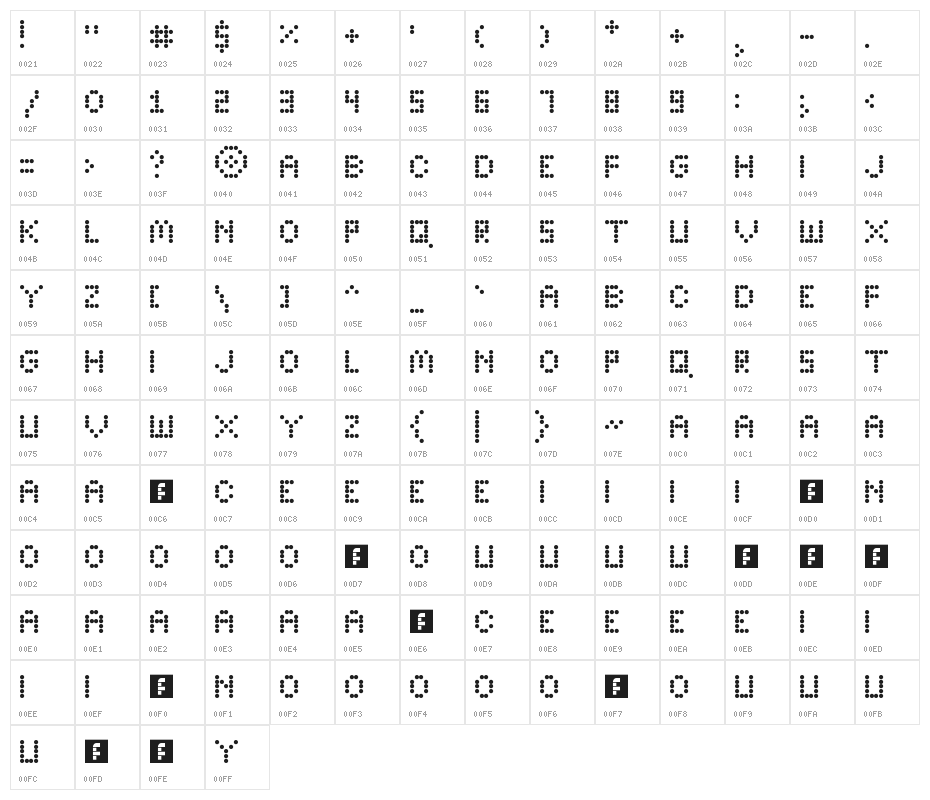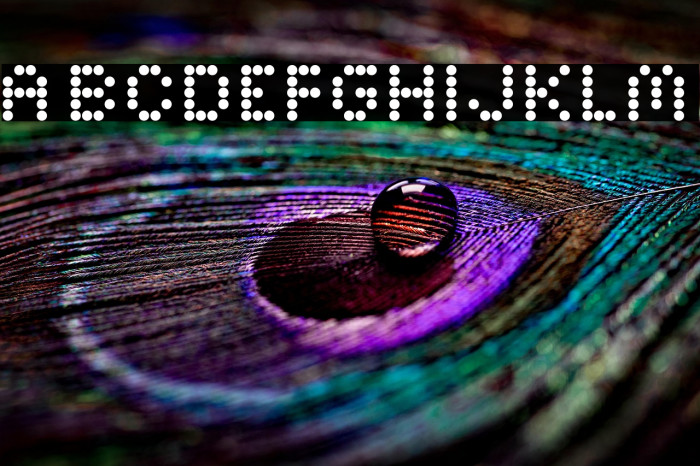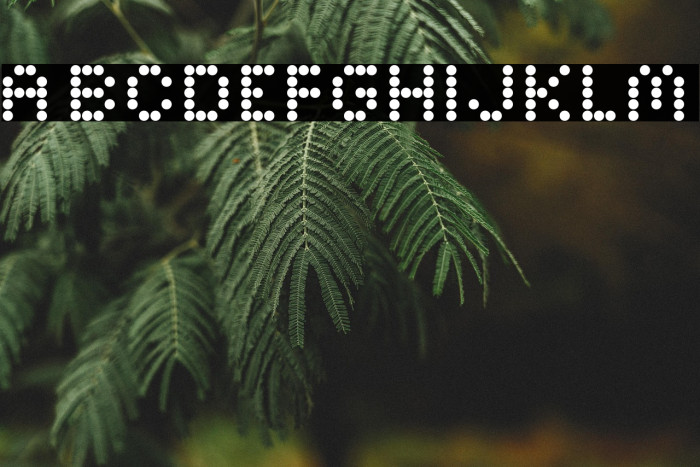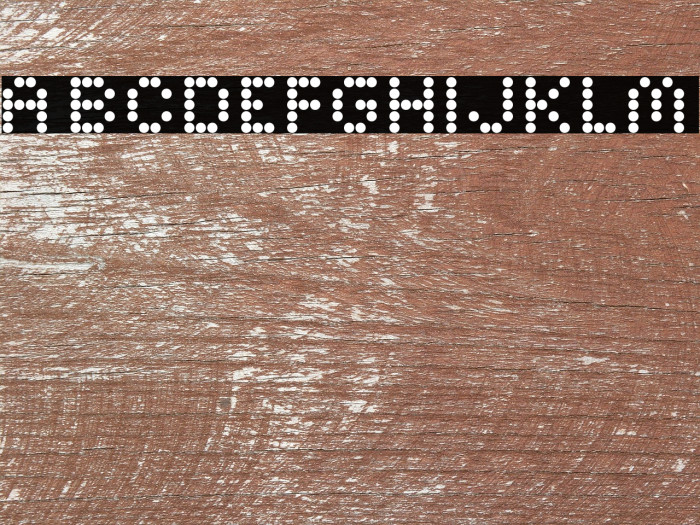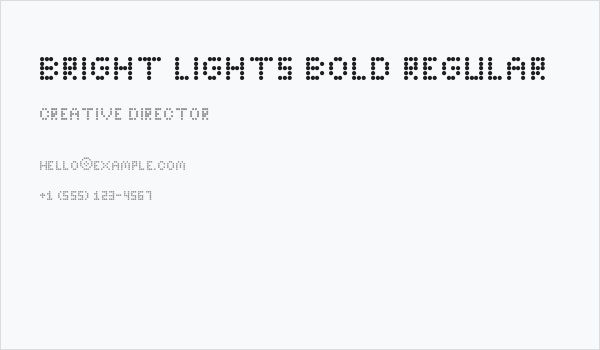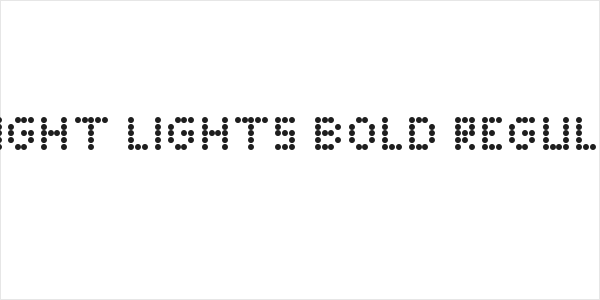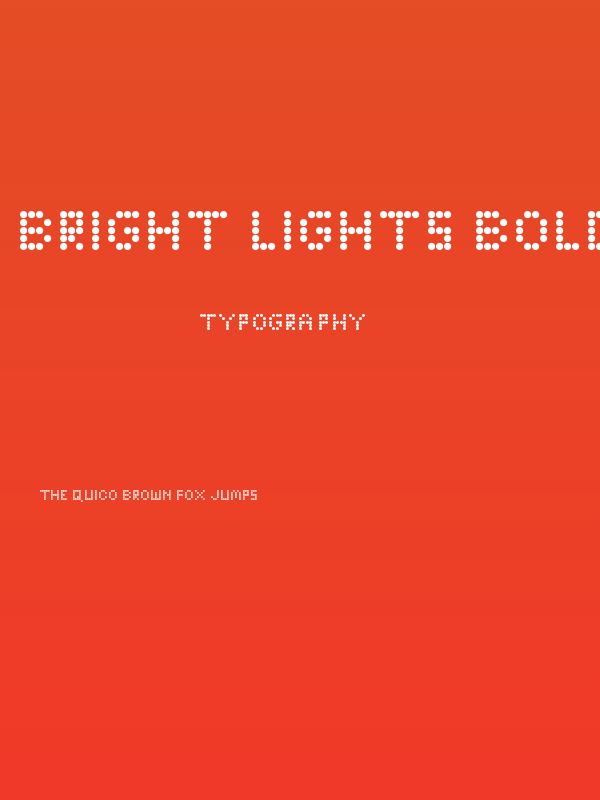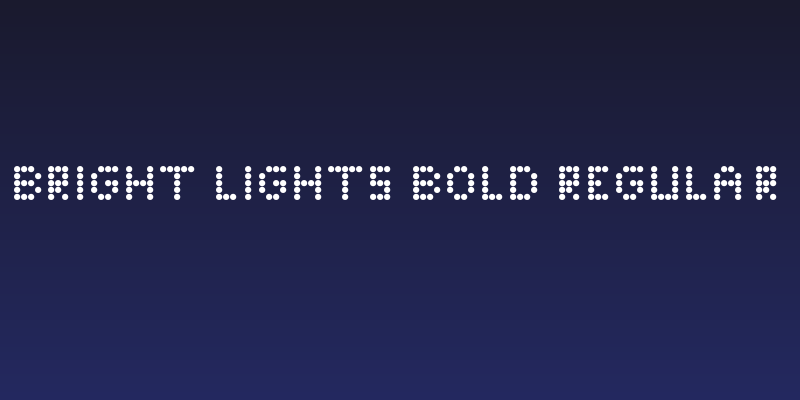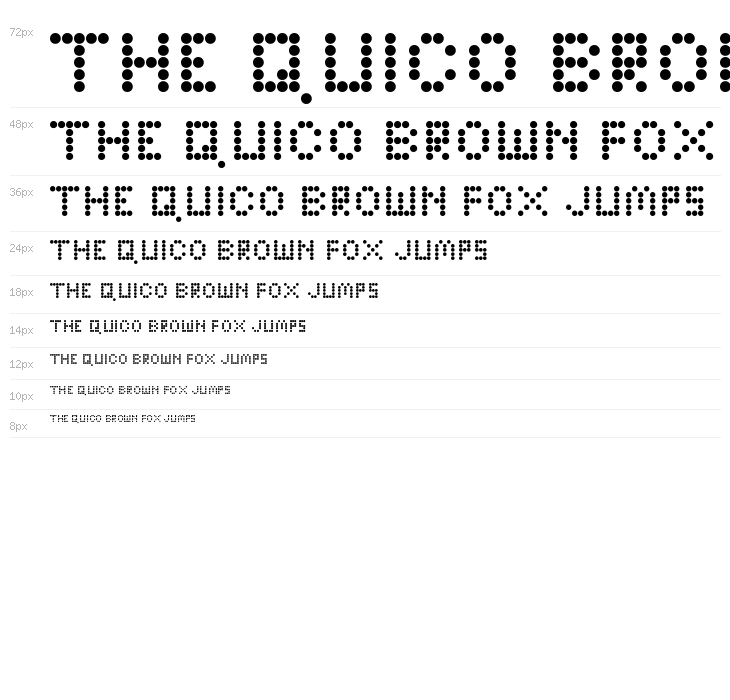
Bright Lights Bold Regular Font
Bright Lights Bold Regular Description
This font features a unique dot matrix style, where each character is constructed from a series of evenly spaced circular dots. The design is reminiscent of digital displays or LED signage, giving it a modern and technological feel. The characters are bold and easily legible, with consistent spacing and alignment across both uppercase and lowercase letters, as well as numbers and special symbols. This font's playful yet structured appearance makes it suitable for creative and tech-oriented projects.